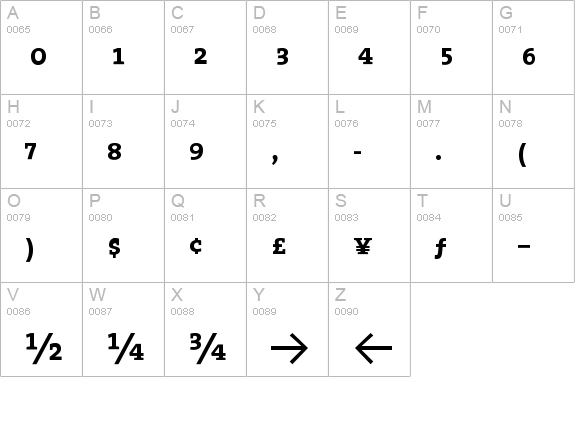
TheSerif SemiBold Expert Font Details
TheSerif SemiBold Expert is a sub-bold, structured variant in the TheSerif typeface family \xE2\x80\x94 well suited to sub-headlines and emphasised passages.
TheSerif SemiBold Expert font is a timeless and versatile typeface that exudes elegance and sophistication. With its beautifully crafted letterforms and balanced proportions, this font is perfect for a wide range of design projects, from branding and advertising to print and digital media. TheSerif SemiBold Expert font features a semi-bold weight that adds a touch of boldness and emphasis to any text. Its expertly designed serifs give it a classic and refined look, making it an ideal choice for projects that require a touch of professionalism and sophistication. One of the best features of TheSerif SemiBold Expert font is that it is freely available to download at FontsMarket.com. This means that designers and creatives can easily access and use this stunning font in their projects without any cost. The font's availability for free download allows for greater accessibility and flexibility, making it a valuable resource for professionals and amateurs alike. Whether you're designing a logo, creating a brochure, or crafting a website, TheSerif SemiBold Expert font is a perfect choice. Its clean and elegant design, combined with its freely available download, makes it a must-have for any designer's toolkit. So why wait? Head over to FontsMarket.com and download TheSerif SemiBold Expert font today to elevate your designs and bring a touch of sophistication to your projects.